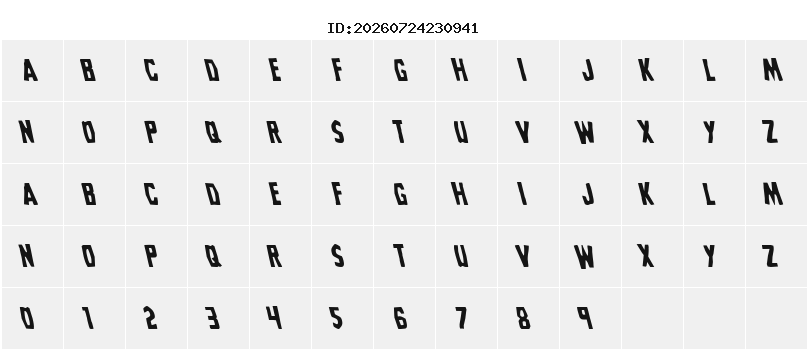
Grim Ghost Leftalic Preview
• Font Name: Grim Ghost Leftalic
• Full Font Name: Grim Ghost Leftalic
About Grim Ghost Leftalic.ttf
Grim Ghost Leftalic.ttf is a modern, elegant sans-serif font designed for ultimate readability and visual harmony. Perfect for branding, headlines, web design, and print materials.